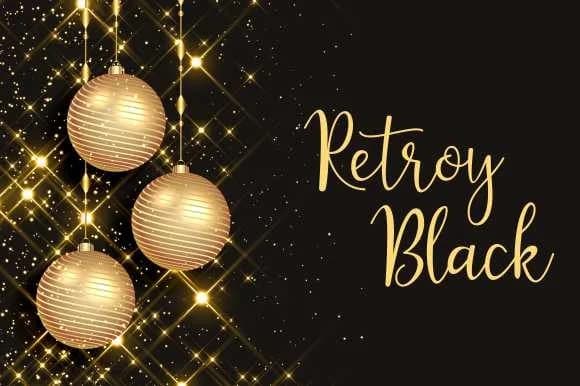
About Rotroys Font
Picture yourself lettering invitations for an upscale wedding, the kind where guests notice every detail on the stationery. Rotroys Font by deniprianggono78 brings that hand-crafted authenticity to script design. Its organic letterforms work beautifully in contexts where genuine artistry matters: formal save-the-dates and custom thank-you cards that feel personally addressed, hand-lettered logos for boutique skincare brands, and product labels for artisan cosmetics that need personality on a shelf.
Where many scripts feel either too casual or stiffly formal, Rotroys hits the middle ground that clients actually want. Use it for personalized book jacket lettering that commands attention on a bookstore display, design wedding programs that feel like keepsakes rather than printed afterthoughts, or create gift tag sets for special events that suggest real thought went into the presentation. The letterforms maintain their sketchy character even at smaller sizes, giving you flexibility across formats without sacrificing that genuine handmade feel that buyers respond to.
At large sizes, Rotroys becomes a real statement. Display headings and dramatic product packaging both benefit from how this script reads confident rather than fragile. Its organic quality stays readable without becoming decorative or difficult. Grab it from Creative Fabrica to bring authentic hand-lettering to your next project.
Rotroys Font is a script font that shines as a display or heading face. Pair it with a clean sans-serif or serif font for body text β the contrast creates a clear hierarchy while the two styles stay balanced and easy to read.